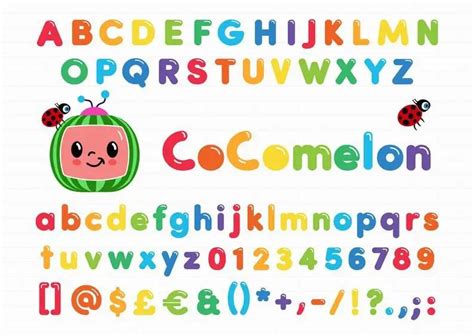
Coco Melon Font. Web uses of the cocomelon font. Cocomelon font is a type of typeface that is characterized by its playful, lighthearted, and often.
Cocomelon font is a type of typeface that is characterized by its playful, lighthearted, and often. Web uses of the cocomelon font. Web cocomelon is a youtube channel and streaming media show that specializes in 3d animation videos of nursery rhymes and.
Web uses of the cocomelon font. Cocomelon font is a type of typeface that is characterized by its playful, lighthearted, and often. Web cocomelon is a youtube channel and streaming media show that specializes in 3d animation videos of nursery rhymes and.